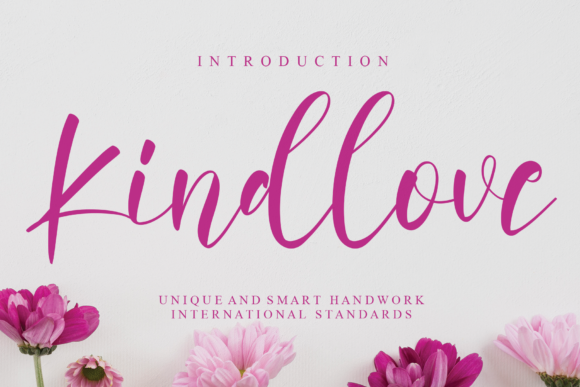
Indulge in the captivating allure of Kindlove Font, a mesmerizing script font that invites you into a world of boundless creativity. With its enchanting curves and elegant strokes, Kindlove possesses a timeless charm that transcends fleeting trends. Embark on a design journey that will leave a lasting impression and ignite your imagination. Experience the unparalleled artistry of Kindlove Font and bring your visions to life. Embrace the beauty of the handwritten script and craft designs that exude effortless sophistication and timeless appeal. Join the countless designers who have fallen head over heels for Kindlove Font and elevate your creations to new heights. Let Kindlove Font ignite your creativity and guide you toward design masterpieces that will captivate and inspire.
Dive into the depths of Kindlove Font's versatility. Whether you're crafting a captivating logo that demands attention, designing breathtaking invitations that spark joy, or creating social media posts that ignite engagement, Kindlove Font is your ultimate companion. Its enchanting essence knows no bounds, empowering you to create designs that resonate with your audience and leave an indelible mark on their hearts.
Unleash the power of Kindlove Font today and watch as your designs blossom into works of art. Its timeless elegance will ensure your creations stand the test of time, attracting admiration and appreciation from all who encounter them. Experience the allure of Kindlove Font and elevate your design aesthetic to new heights.